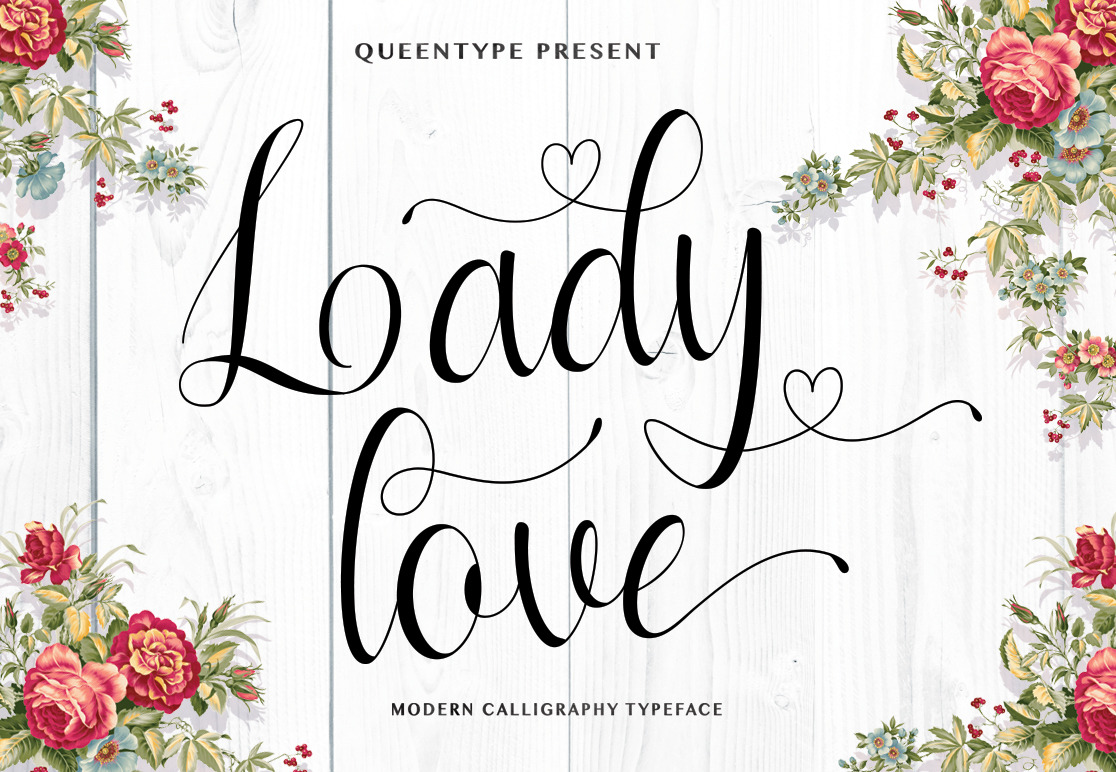
Ladylove Script Typeface
★★ --- Queentype Introducing : Ladylove Script Typeface --- ★★
Ladylove Script Typeface is a beautiful Modern Calligraphy Style give the Elegant looks. Alternate character contain with Alternate and more. You can access all those alternate characters by using OpenType savvy programs such as Adobe Illustrator and Adobe InDesign.
Great for Apparel Brand, Logos, printed quotes, invitations, image overlays, greeting cards, product packaging, text headers, any greeting cards, book cover, Painting design style, or any design that needs natural and personal touch & whatever else your imagination holds! Mix and match the alternate characters to add an attractive message to your design.